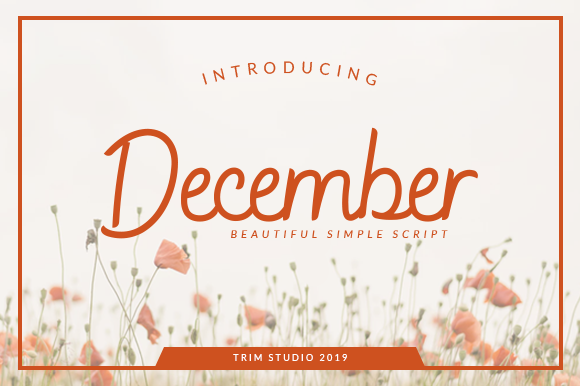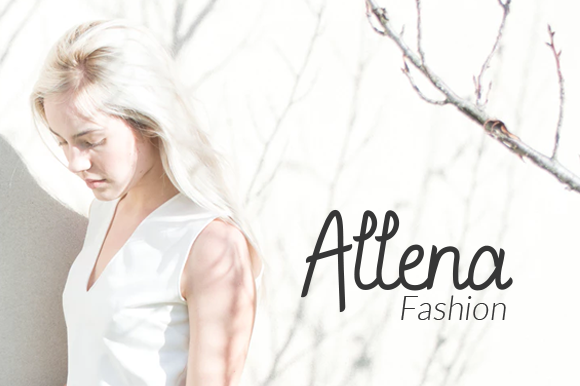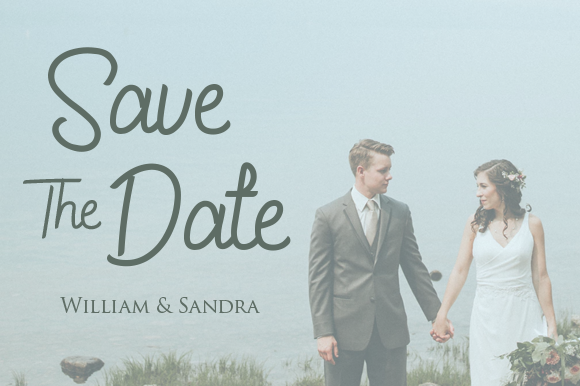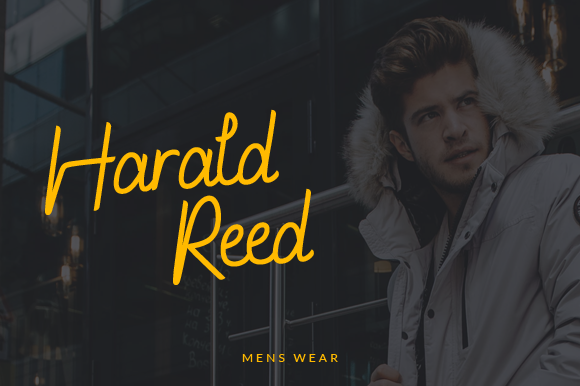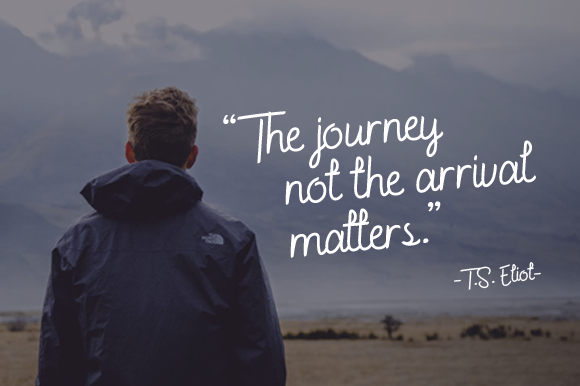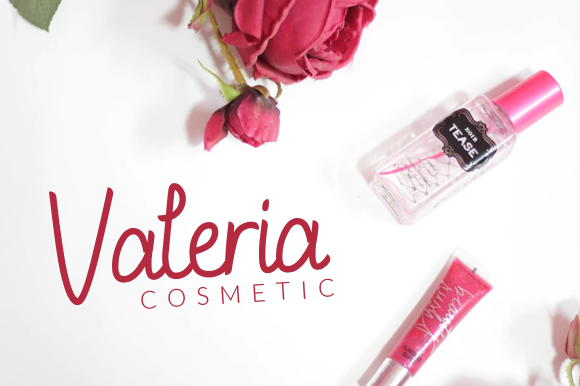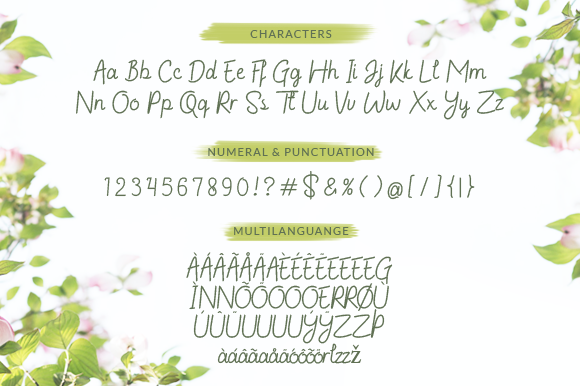
December Font
About December Font
The December is a beautiful simple script font. It will add a personal touch to greeting cards, branding, business cards, quotes, posters, and much more!